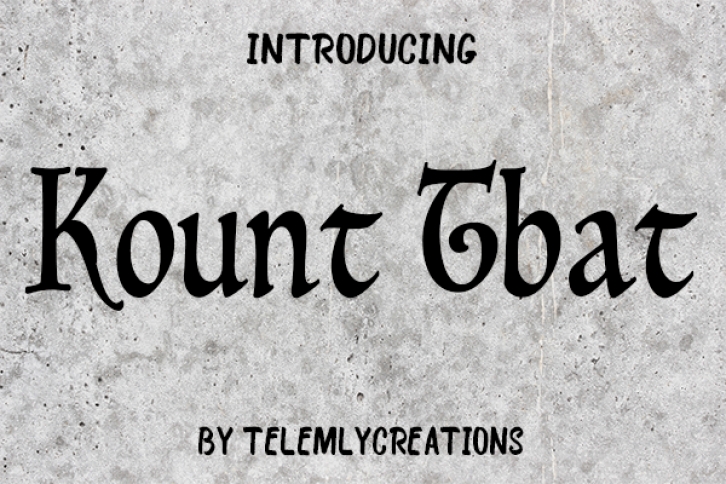
Kount Tbat is a beautiful handwritten font, your best choice for creating eye-catching logos, branding, and quotes. Every letter has a unique and beautiful touch, which will make your design come alive!